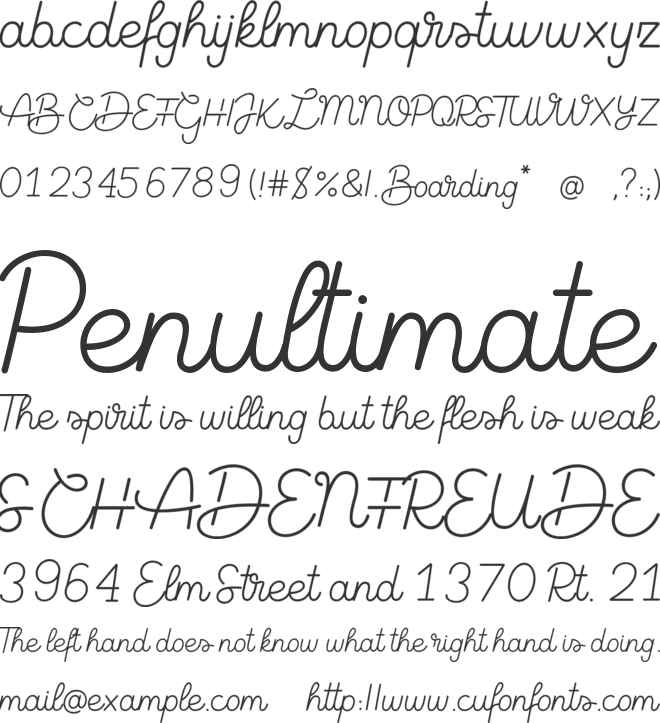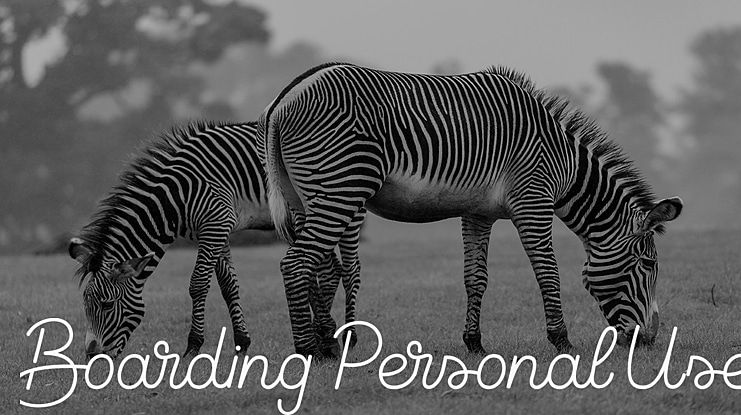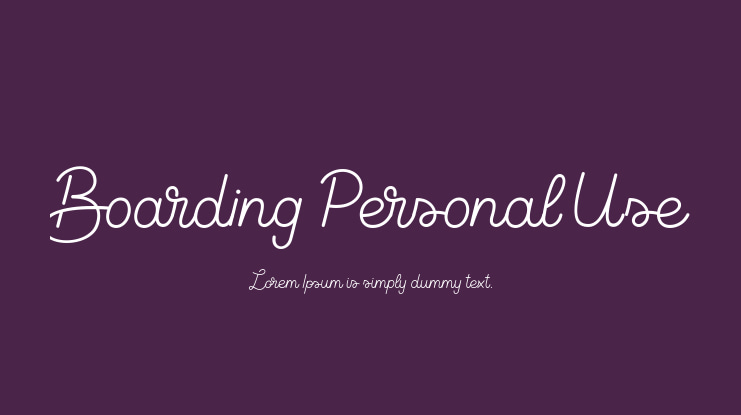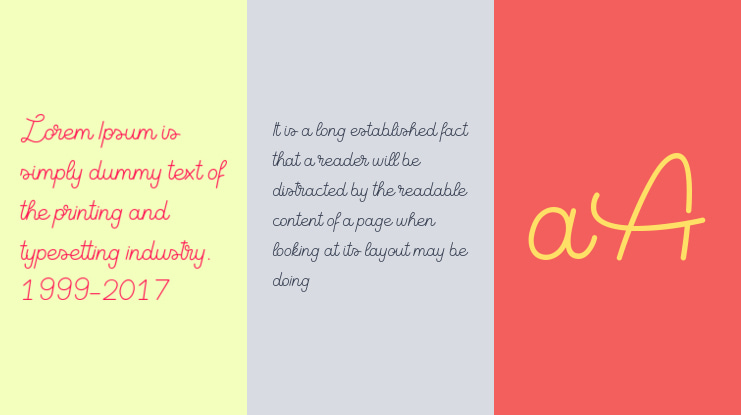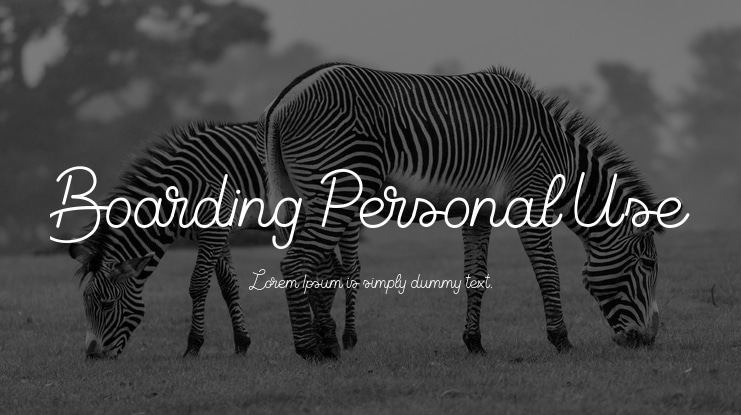
Boarding Personal Use Font
Christoph Dörre
Boarding is our newest handwritten monoline font. It comes with loads of contextual alternates, initial & terminal forms, ligatures and more which sums up to an incredible amount of 600 glyphs. Each letter is handdrawn and then reshaped to match them all together. The monoline look makes the font versatile and suitable for any project.